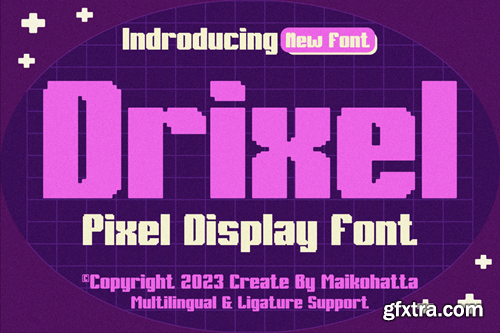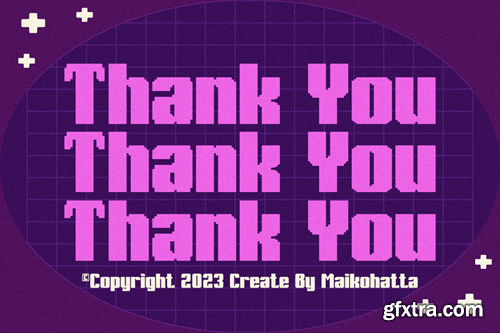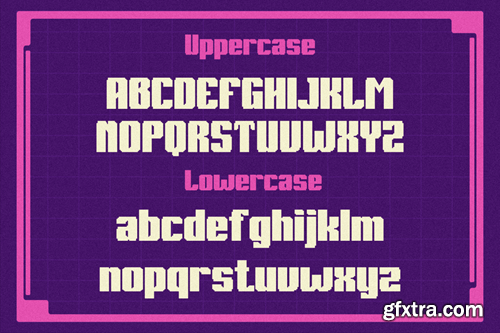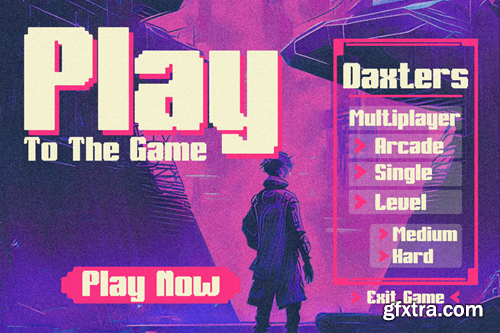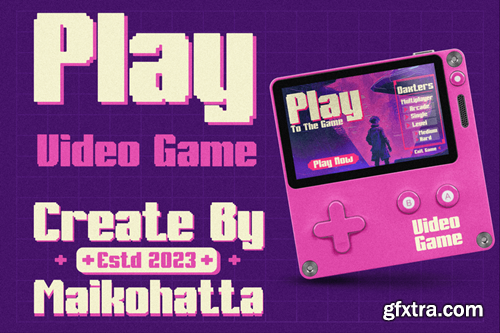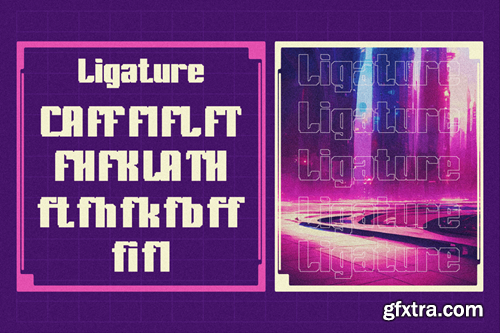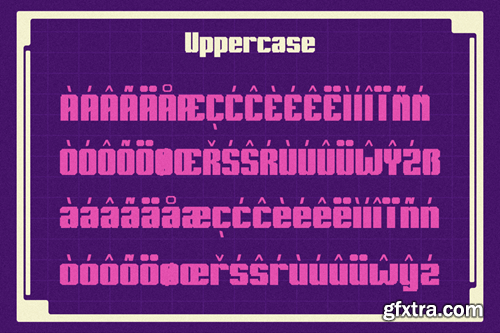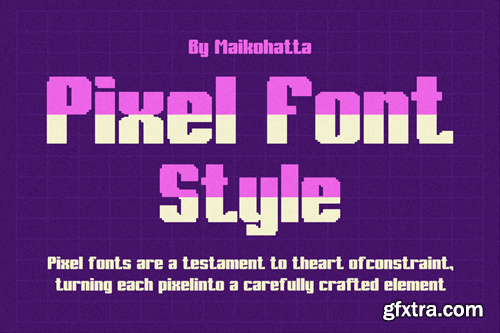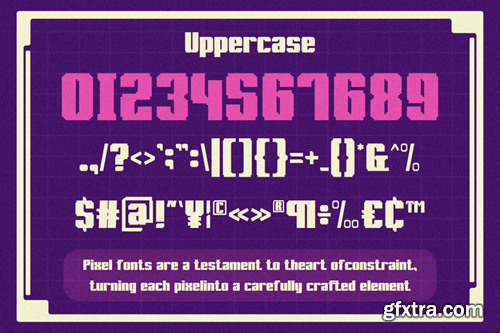
迪克尔 - 像素显示字体E4XG2NB
Drixel - Pixel Display Font
Introducing our new product Drixel - Pixel Display Font This Font is a type of lettering that features a futuristic design inspired by advanced technology. This font reflects the digital era and technological advancements, bringing a sense of modernity, innovation, and energy to any design. With sharp lines, geometric letter shapes, and futuristic elements, this font is suitable for projects related to technology, robotics, science, and modern lifestyle. This font are often found in logos, website designs, posters, and other creative projects that require a futuristic touch. available